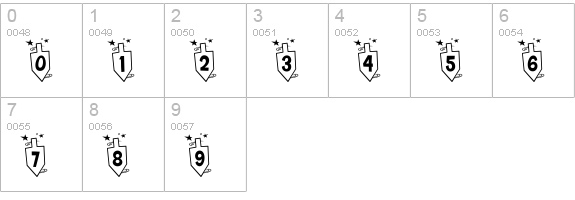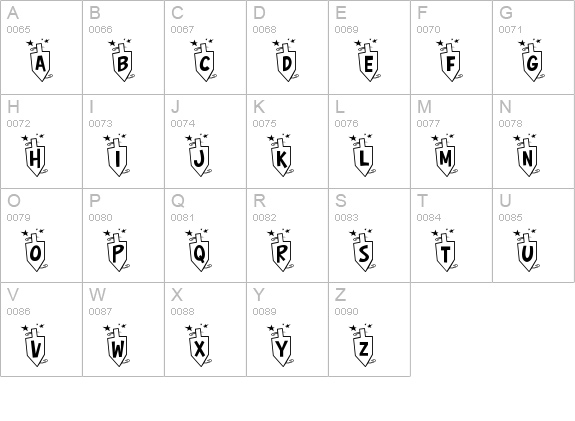
Hurrah Dreidle BTN Font Details
Hurrah Dreidle BTN is a charming and playful font that brings a touch of whimsy to any design. This unique typeface features a blend of traditional and modern elements, making it perfect for adding a festive flair to your projects. With its quirky letterforms and decorative accents, Hurrah Dreidle BTN is sure to stand out and capture attention. The best part? Hurrah Dreidle BTN is available for free download at FontsMarket.com, making it easily accessible for anyone looking to add a fun and festive touch to their designs. Whether you're creating holiday-themed graphics, invitations, or branding materials, Hurrah Dreidle BTN is a versatile font that will add a touch of joy to any project. Download it today and let your creativity shine with this delightful typeface!